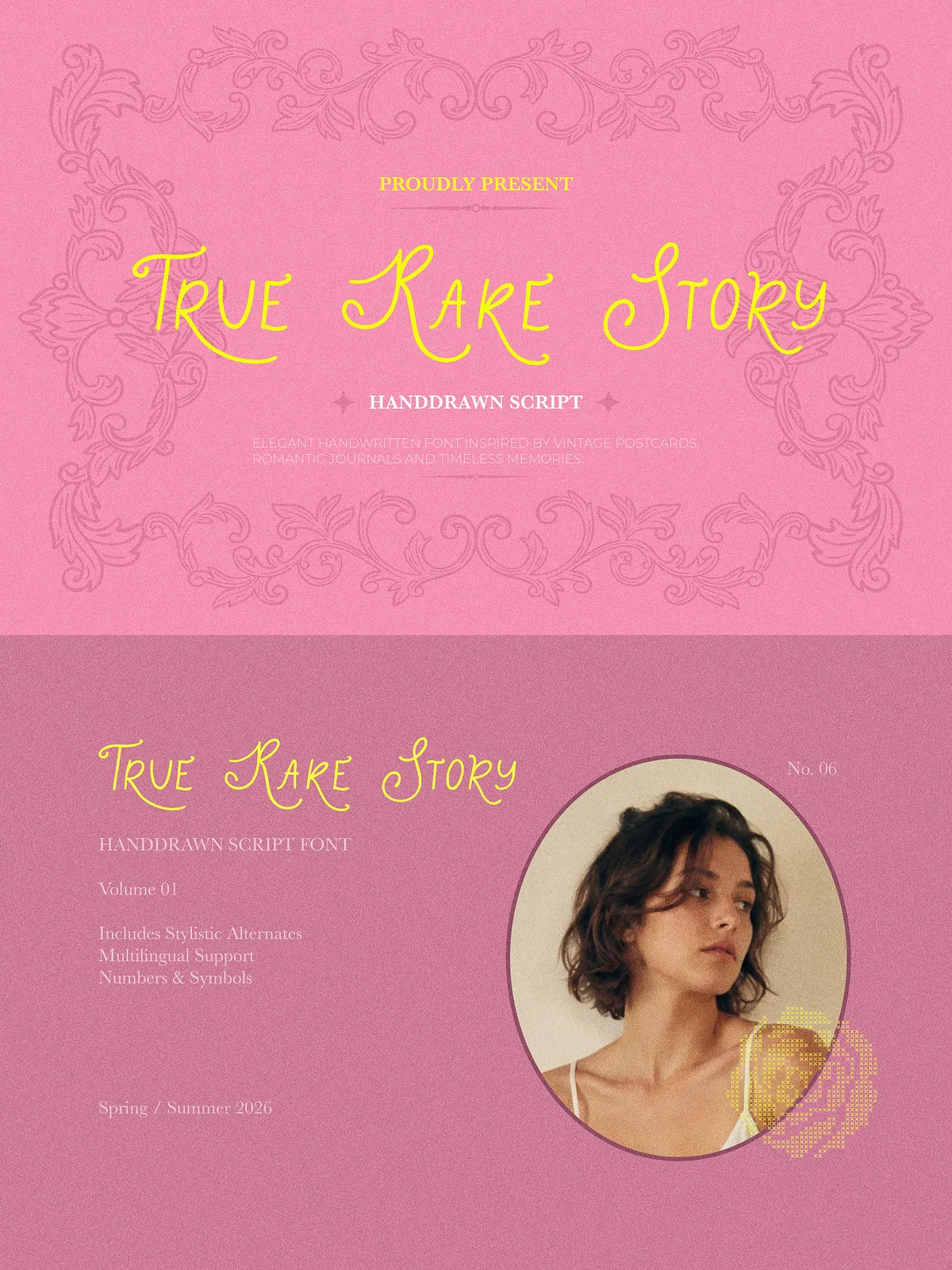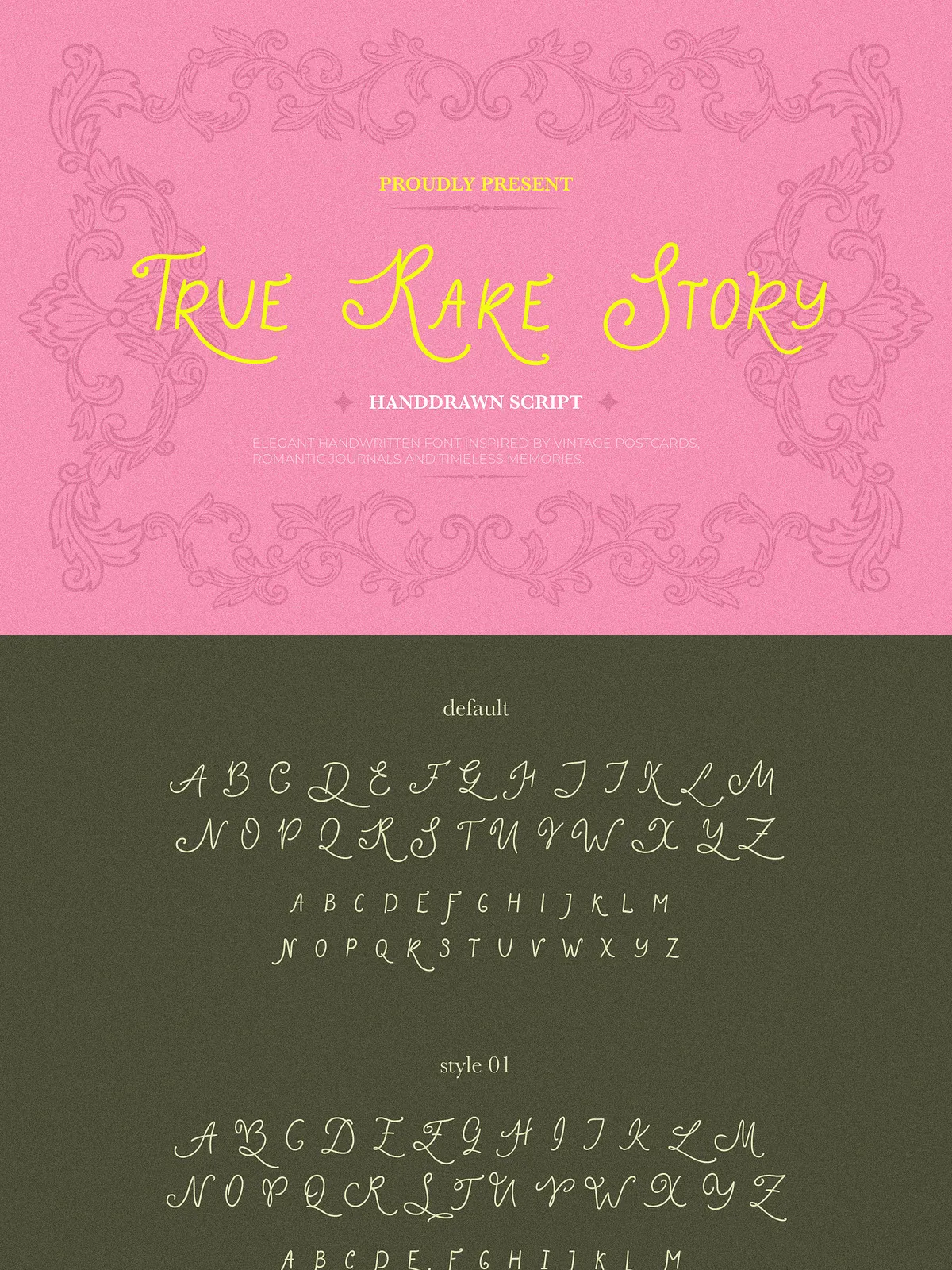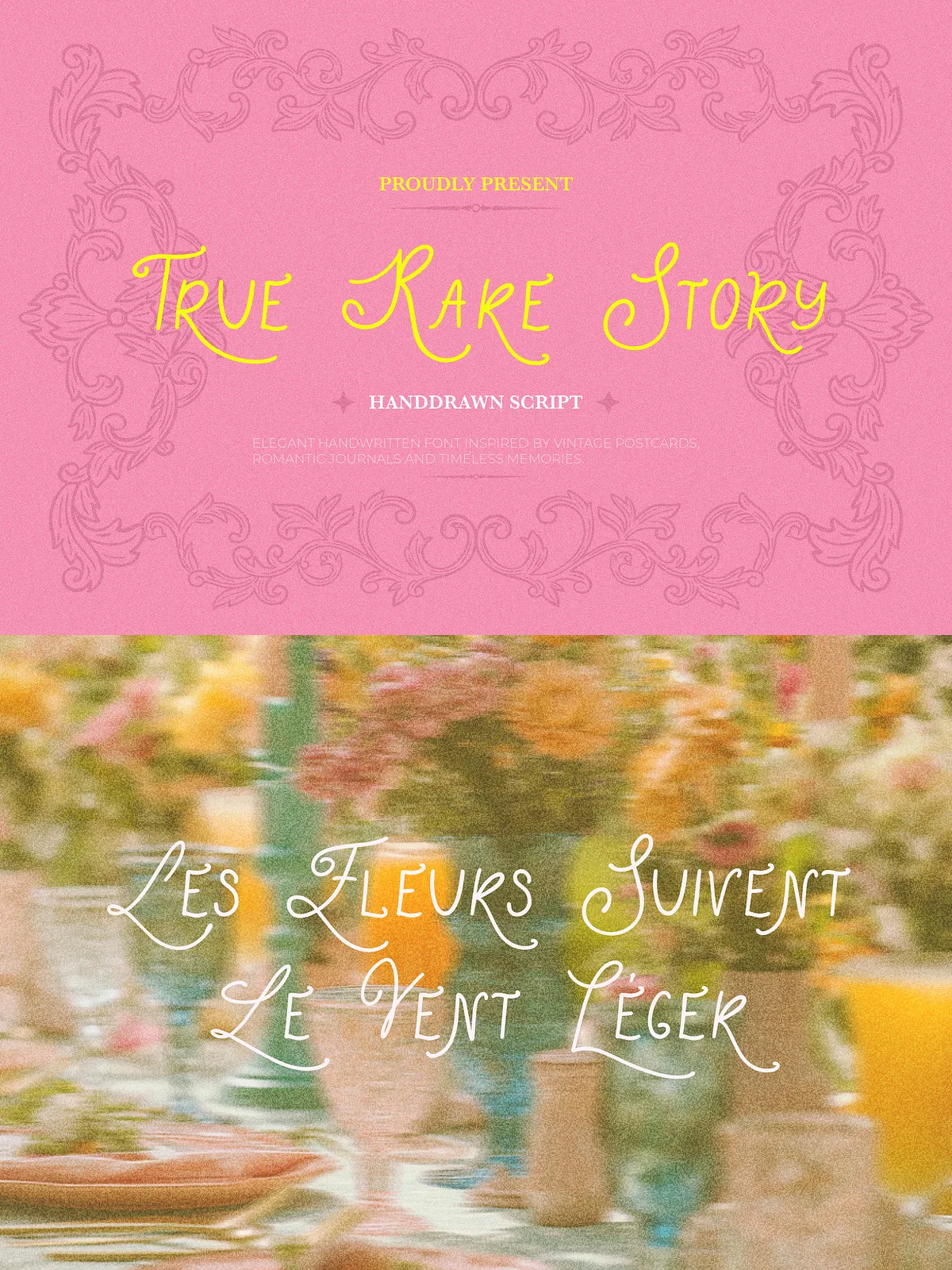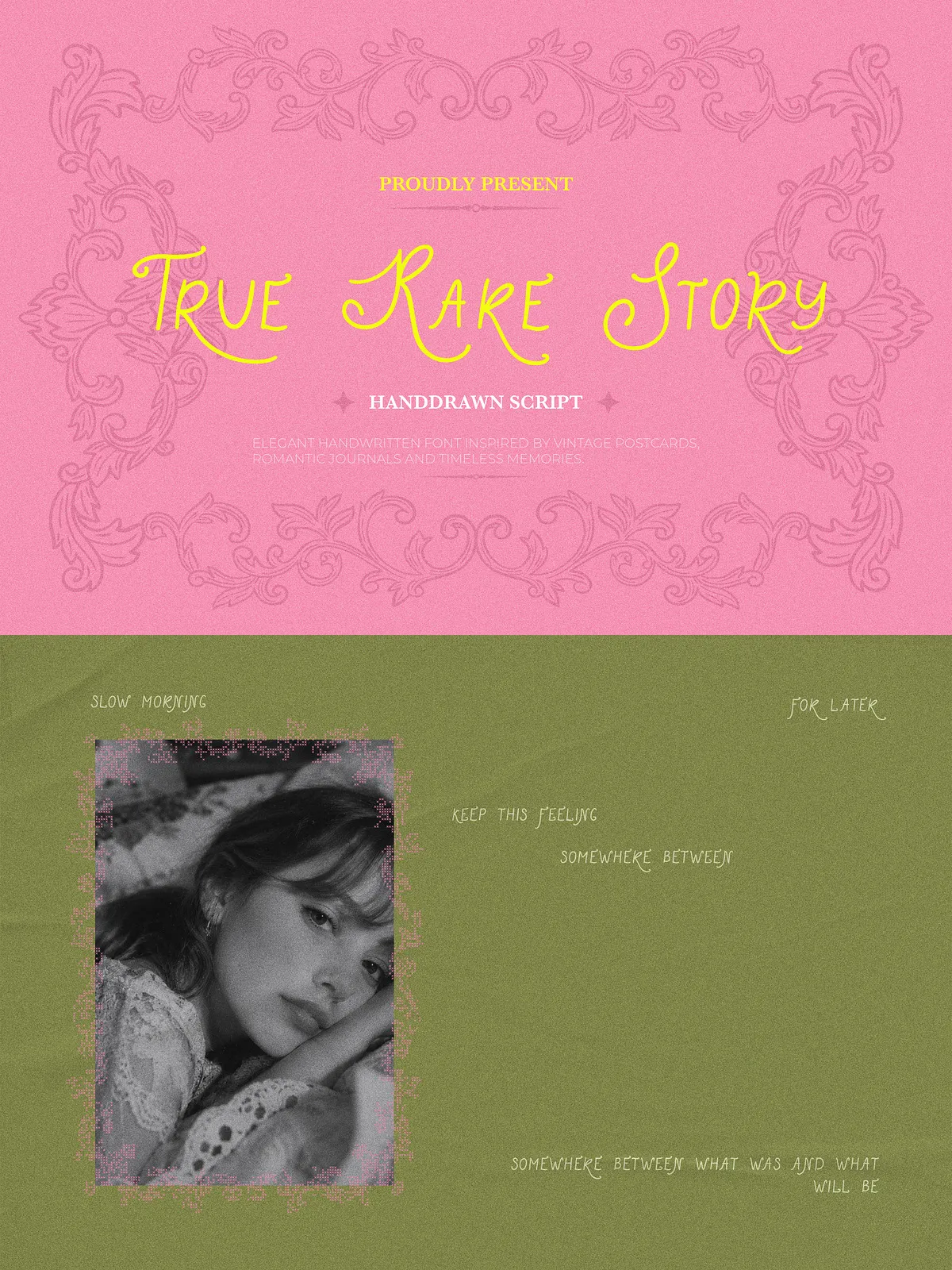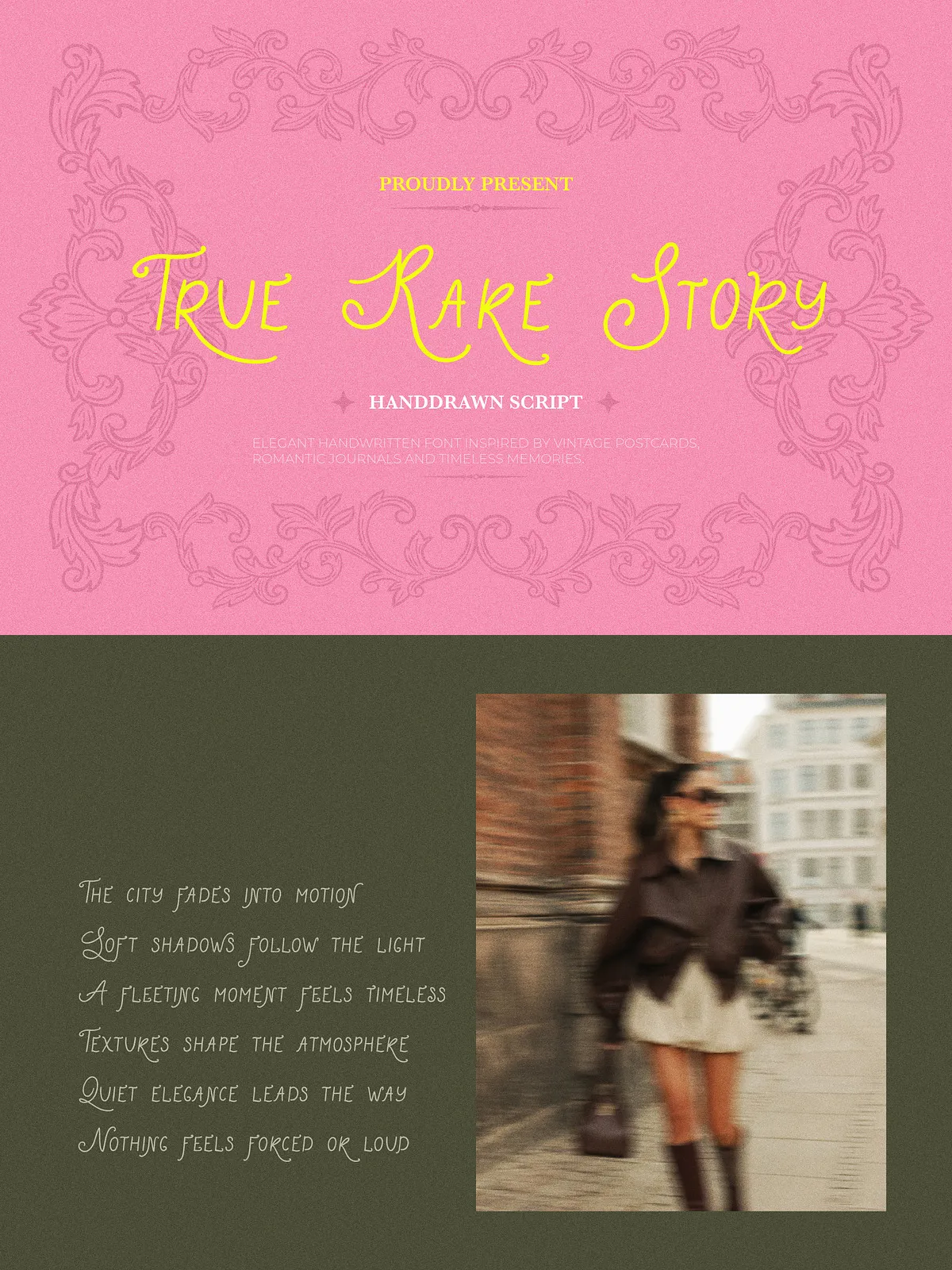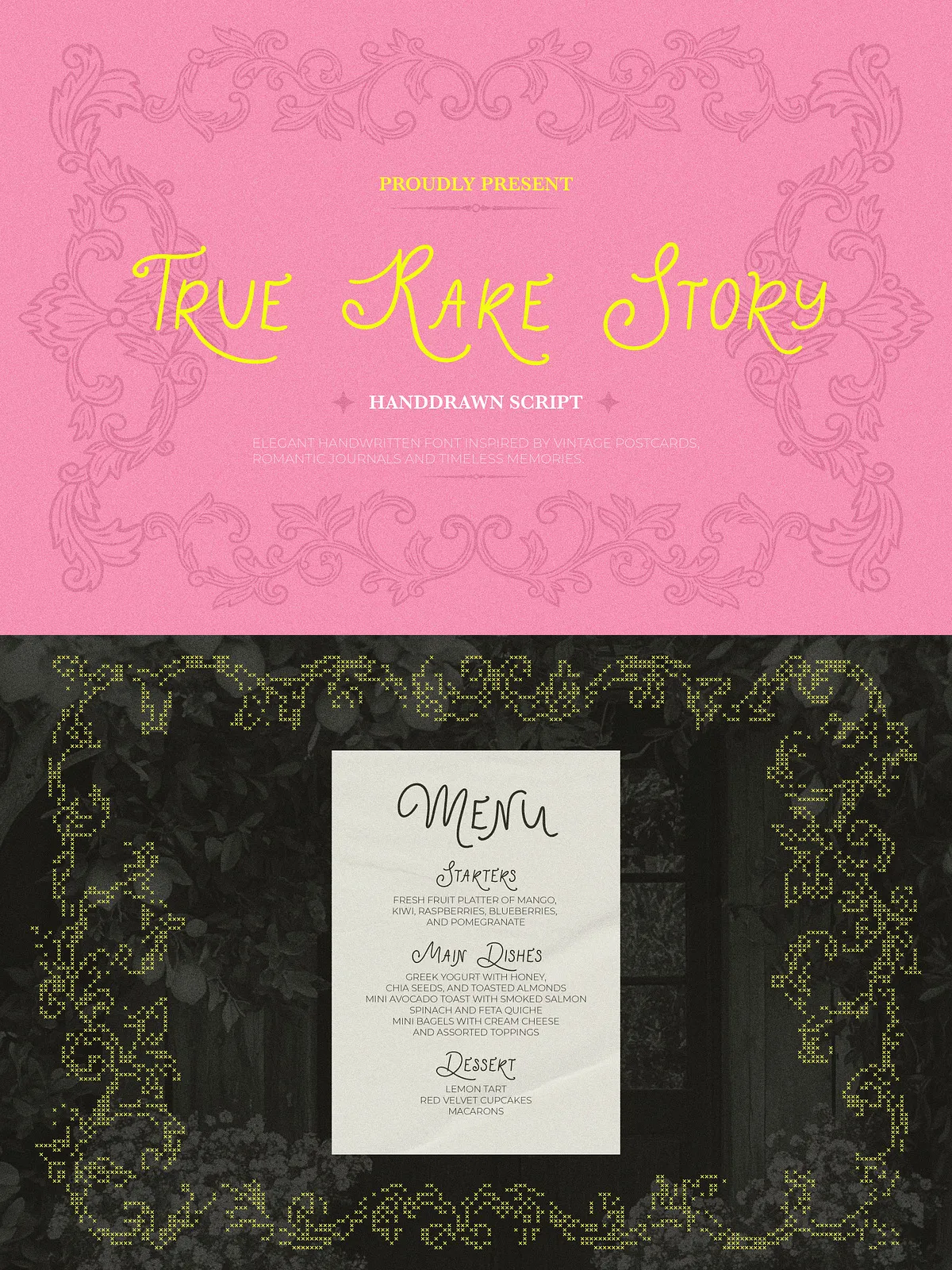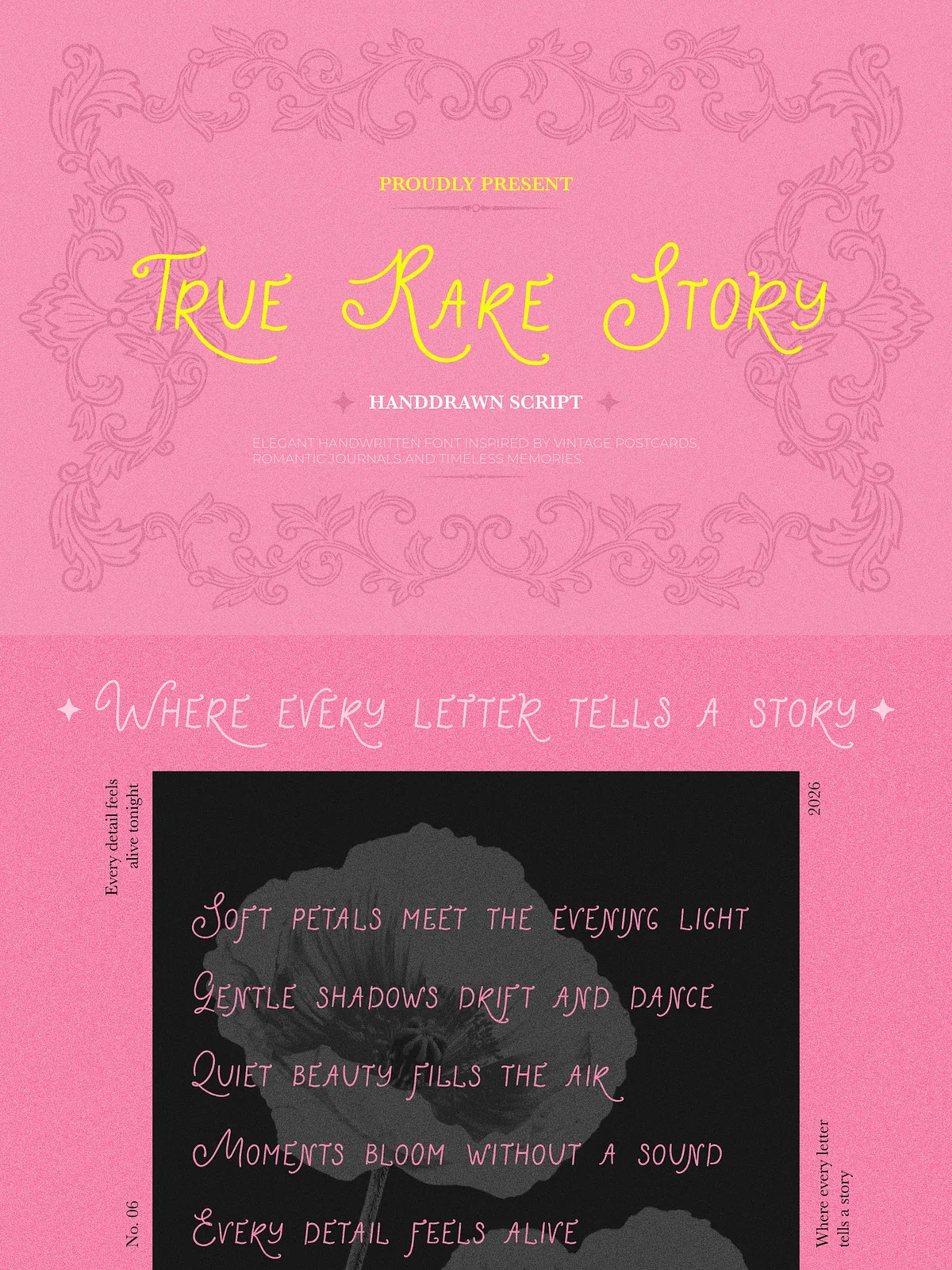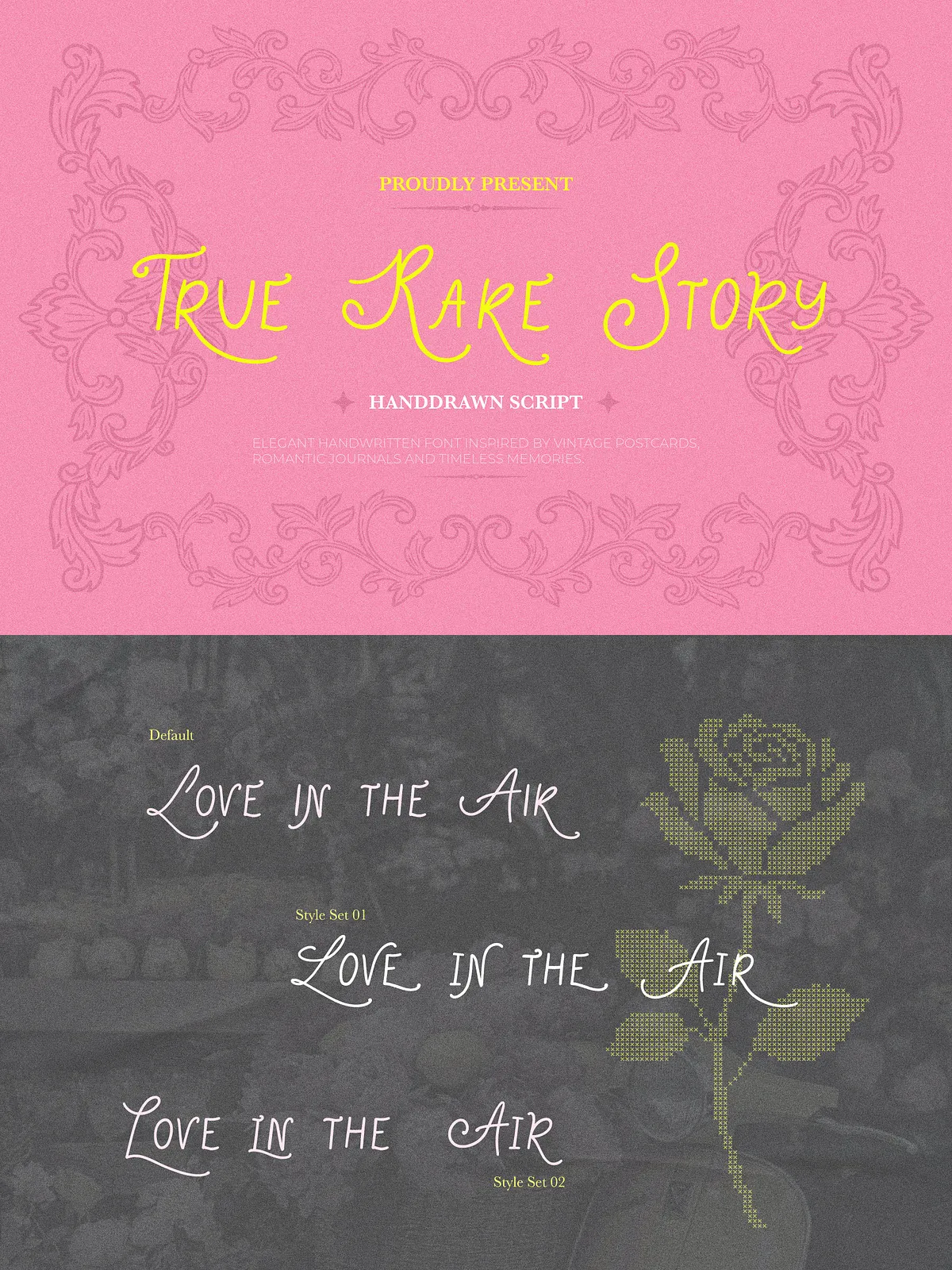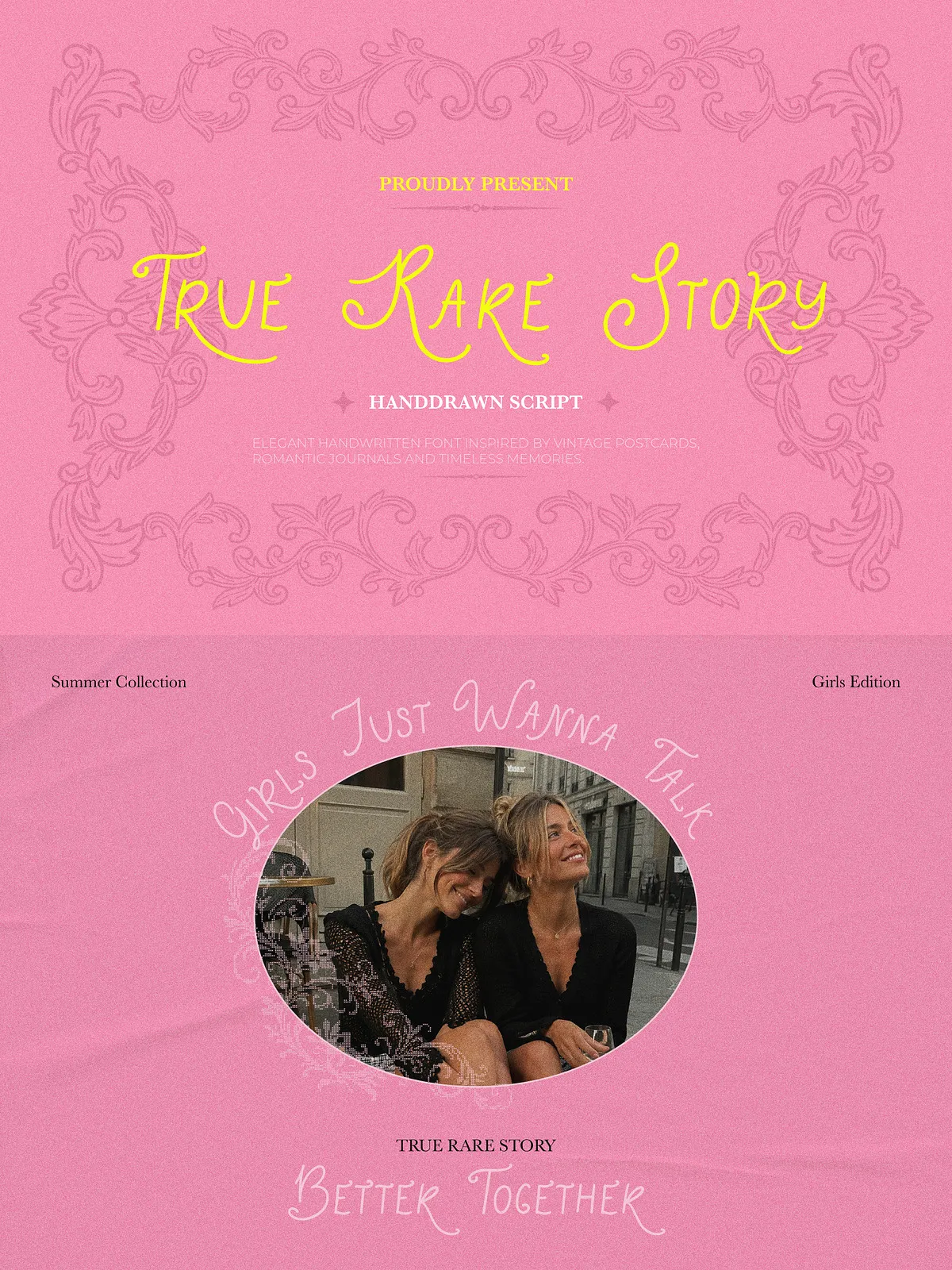
True Rare Story delivers a whimsical, hand-drawn script voice shaped by scrapbook journals, dreamy editorials, and cottagecore aesthetics. Designers choose this font when they want to convey warmth, nostalgia, and personality. Its lively strokes and stylistic alternates create authentic, handcrafted impressions that elevate wedding invitations, brand identities, packaging, and social graphics.
Organic Hand-Drawn Style
The typeface uses organic, slightly irregular strokes to mimic real handwriting, producing a friendly and intimate tone. Each letter retains subtle imperfections that make compositions feel human and approachable.
Romantic Vintage Feel
True Rare Story channels vintage summer memories and scrapbook textures. Use it to evoke nostalgia and craft designs that feel curated, sentimental, and timeless.
Stylistic Alternates & Ligatures
The font includes stylistic alternates and common ligatures so you can adjust rhythm and flow across words and phrases. Swap alternate characters to create unique signatures, logotypes, or headline treatments.
Perfect For
True Rare Story fits design projects that benefit from a personal, nostalgic voice. Typical uses include:
- Wedding invitations, RSVP cards, and bridal stationery
- Branding for boutiques, cafes, and handmade product lines
- Packaging for candles, perfumes, cosmetics, and artisanal goods
- Social media templates, quote graphics, and lifestyle posts
- Book covers, editorial layouts, and poster designs with a romantic mood
Design & Pairing Tips
Maintain Readability
Reserve True Rare Story for headlines, short phrases, and decorative text. Pair it with a neutral sans or a clean serif for body copy to preserve readability and visual balance.
Use Alternates Thoughtfully
Activate stylistic alternates selectively to avoid visual clutter. Use alternate glyphs for initials, signatures, or when you need distinct logotype treatments.
Color and Texture
Enhance the vintage feel by pairing the font with muted palettes, paper textures, or subtle grain overlays. These treatments amplify the handcrafted aesthetic without overpowering the letterforms.